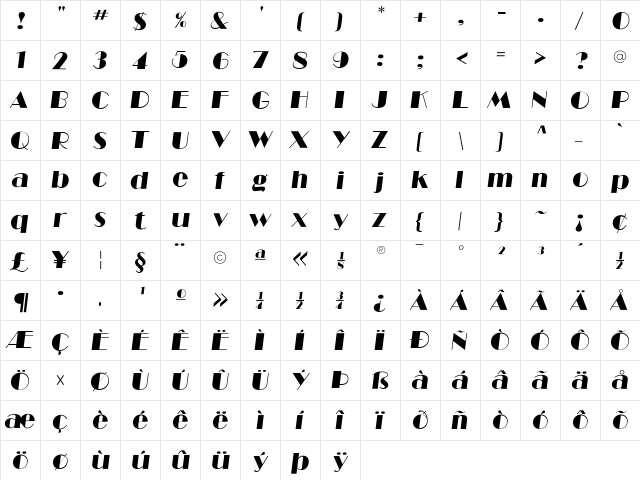
RitzFLF Medium Italic
Design Context for RitzFLF Typeface
RitzFLF is a composed and adaptable typeface that performs quietly and consistently across a wide range of design contexts. The dynamic lean of this cut emphasises speed and emphasis in any layout.
Pro Tip: Try RitzFLF for annotation and caption copy alongside an upright companion — the contrast in angle creates a dynamic but ordered typographic system.